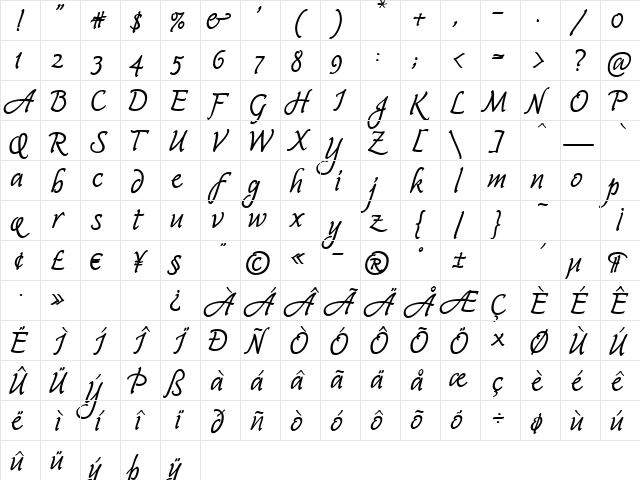
Harmonica  Bold Regular
Design Context for Harmonica Bold
Harmonica Bold is a composed and adaptable typeface that performs quietly and consistently across a wide range of design contexts. Its bold stroke weight gives it real presence on the page.